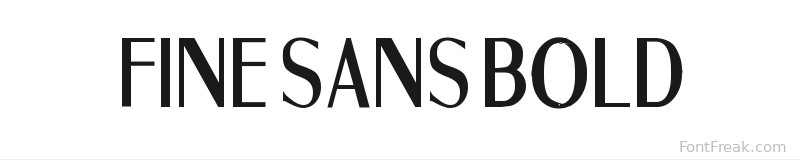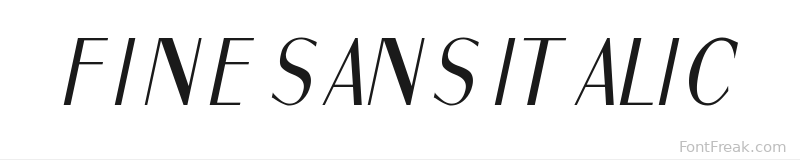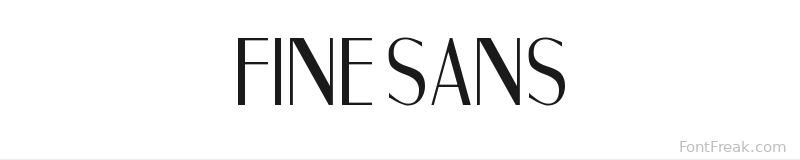
Fine Sans Italic
Fine Sans Bold
Fine Sans
Fine Sans Italic by Galdino Otten Fonts is a striking sans-serif typeface that elegantly combines modern aesthetics with classic readability. Released in 2013, this font features a clean and contemporary design, characterized by its refined stroke weight and subtle contrast between thick and thin lines. The italic style adds a touch of dynamism, making it perfect for conveying emphasis and sophistication in various applications. The spacing is well-balanced, ensuring clarity and legibility, which is essential for both digital and print media.
This versatile font is ideal for a range of use cases. Its sleek appearance makes it an excellent choice for wedding invitations, where it can add an air of elegance. Additionally, Fine Sans Italic shines on restaurant menus, where its readability can enhance the dining experience. For graphic designers looking to create eye-catching movie posters, this typeface provides a modern flair that stands out while maintaining professionalism. Small business owners can also leverage this font for branding materials, ensuring their message is communicated clearly and attractively.
What sets the Fine Sans Italic font apart is its balance of simplicity and sophistication. The combination of modern design elements with a timeless feel makes it not just a font, but a versatile tool for communication. Downloading the Fine Sans Italic font free download provides users with the opportunity to elevate their design projects and engage their audience effectively.